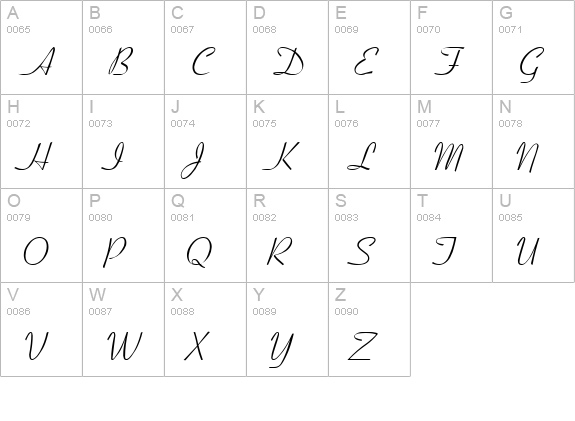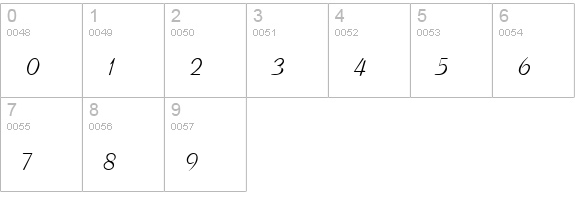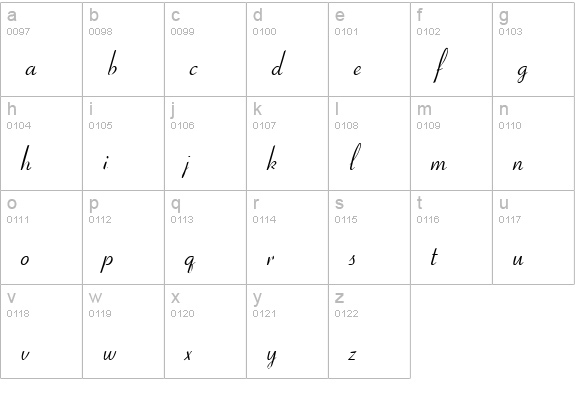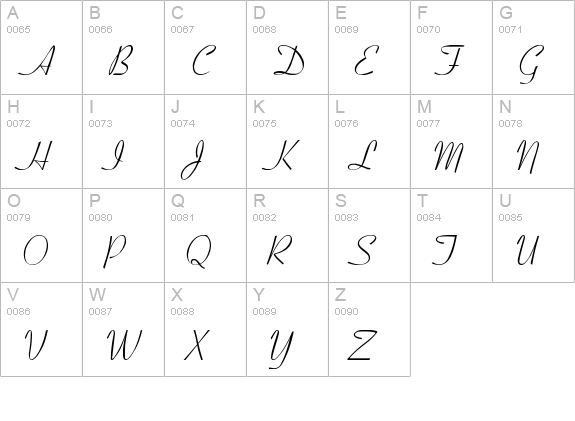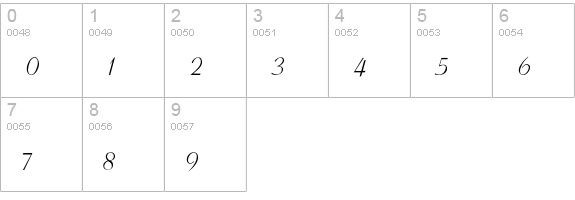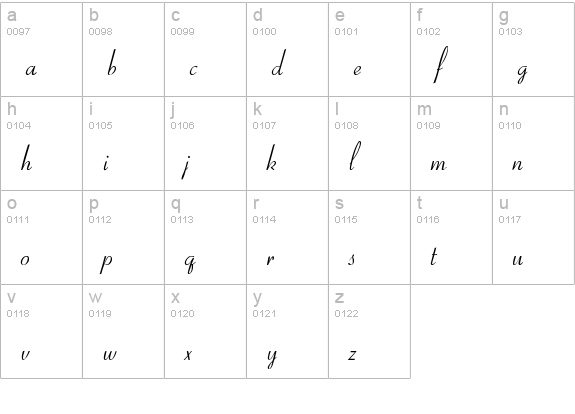
Hyazinth Font Details
Hyazinth font is a beautifully crafted typeface that effortlessly combines elegance with a touch of modernity. Its stylish and versatile design makes it perfect for a wide range of projects, from branding to editorial design. The sleek lines and unique curves of Hyazinth font add a sophisticated flair to any text, making it stand out from the crowd. What makes Hyazinth font even more appealing is that it is available for free download at FontsMarket.com. This means that you can easily access this stunning font without any cost, making it a valuable addition to your font library. Whether you're a designer looking to elevate your creations or a business owner in need of a fresh look for your branding, Hyazinth font is sure to impress with its timeless charm and modern appeal. Download Hyazinth font today and give your projects a touch of class and style.